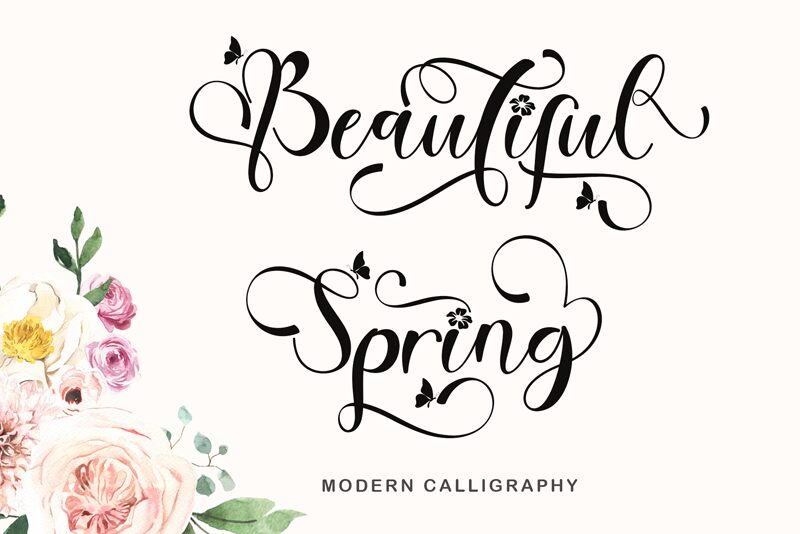
Beautiful Spring
Beautiful Spring is a captivating calligraphic font that exudes elegance and grace. Crafted by Yoga Letter, this masterful design seamlessly blends the fluidity of handwritten strokes with a refined, sophisticated aesthetic. The sweeping curves and gentle flourishes create a sense of movement and vitality, evoking the very essence of the season it is named after.
This font's unique character shines through in its expressive, script-like appearance, making it an ideal choice for various design applications. From eye-catching event invitations and wedding stationery to inspiring social media graphics and editorial layouts, Beautiful Spring's captivating style will elevate any project with its timeless charm and refined artistry.